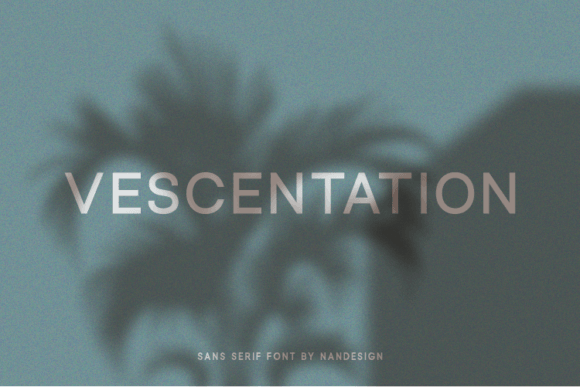
Journey into the realm of typography with Vescentation Font, a sans-serif masterpiece crafted by Nan Design. This captivating font family is the epitome of elegance and versatility, designed to elevate your creative projects to astounding heights.
Immerse yourself in a world of visual enchantment as Vescentation's graceful lines dance across your designs, leaving an indelible mark of sophistication. Each character exudes an aura of charm, beckoning you to explore the boundless possibilities of creative expression.
With Vescentation, your headlines will command attention, your invitations will radiate warmth, and your logos will embody the essence of timeless aesthetics. Its sleek and modern style seamlessly blends with a touch of vintage allure, creating a harmony that resonates with both classic and contemporary sensibilities.
Unleash your imagination and let Vescentation guide you through a symphony of visual artistry. Its versatility knows no bounds, extending from eye-catching displays and headers to save-the-dates and wedding invitations. Allow your creativity to flourish as Vescentation transforms ordinary designs into extraordinary works of art.